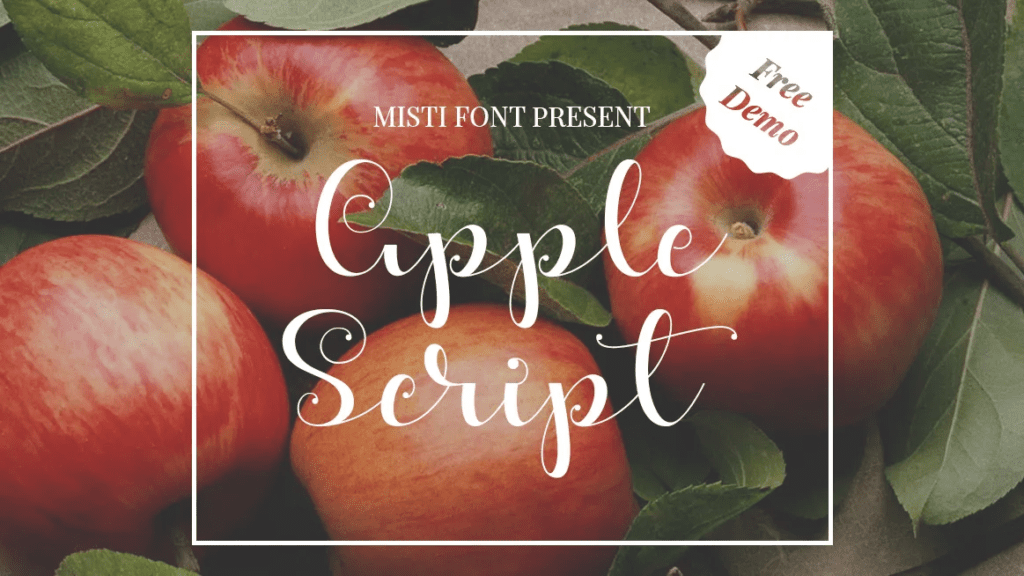
Welcome the “Apple Script” embroidery font – your reliable assistant and a great asset in design elaboration. Dress up your monograms, graphics and fabrics with this script that can be described as both refined and frivolous. The peculiarity of our product is that the digital download format means it will be available for anyone, regardless of their level of experience – starting from the very beginning, within moments.
Embroider whatever stirs your creativity and bring changeless elegance to fabrics. Get a copy of “Apple Script” today and stylishly apply the above font on any item adding the much needed flavor to even the mundane items. Elevate your embroidery today!
Apple Script Free Demo